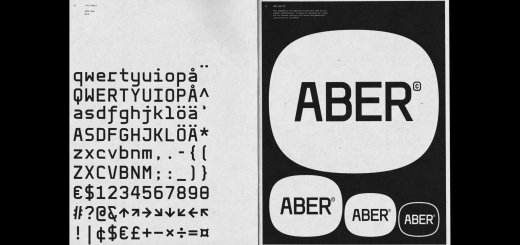
Vivala Unicase
Johannes Hoffmann
Publisher: Johannes Hoffmann
Vivala Unicase is a modern, rounded linear grotesque that is easy to read even in small font sizes. The composition of uppercase and lowercase letters results in a unique typeface. The new version contains five weights, including a boldface, which…